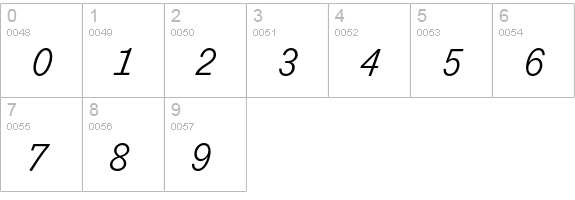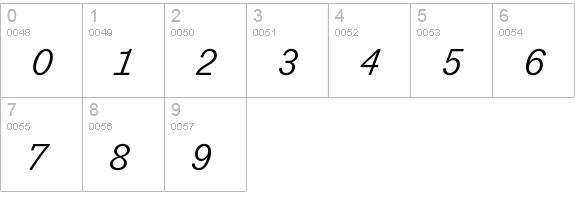
Figgins Sans Italic Font Details
Figgins Sans Italic is a distinctive, italic variant in the Figgins typeface family \xE2\x80\x94 well suited to design and typography projects.
Figgins Sans Italic font exudes elegance and sophistication with its sleek and modern design. The slanted characters convey a sense of movement and dynamism, making this typeface perfect for adding a touch of style to any project. The delicate curves and flowing lines of Figgins Sans Italic create a harmonious balance that captivates the eye. This versatile font is ideal for a wide range of design applications, from branding and advertising to editorial and web design. Its clean and minimalistic aesthetic ensures readability while still making a statement. Whether you are working on a print publication or a digital project, Figgins Sans Italic will elevate your work with its refined charm. Best of all, Figgins Sans Italic is available for free download at FontsMarket.com. This means you can access this high-quality font without any cost, making it a valuable addition to your font library. Don't miss out on the opportunity to enhance your designs with the sophisticated beauty of Figgins Sans Italic.